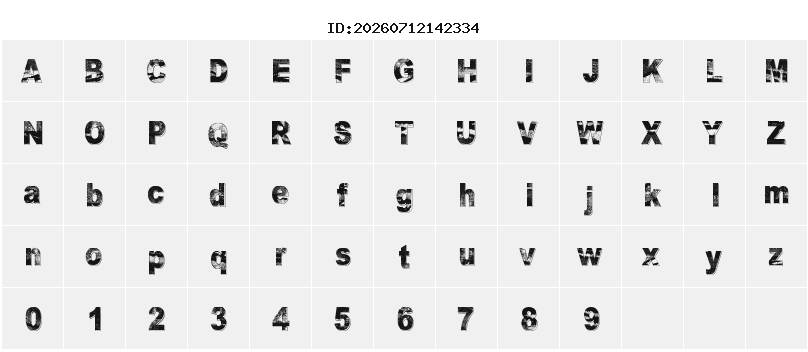
Razterhunch Shadow Preview
About Razterhunch Shadow.ttf
Razterhunch Shadow.ttf is a modern, elegant sans-serif font designed for ultimate readability and visual harmony. Perfect for branding, headlines, web design, and print materials.